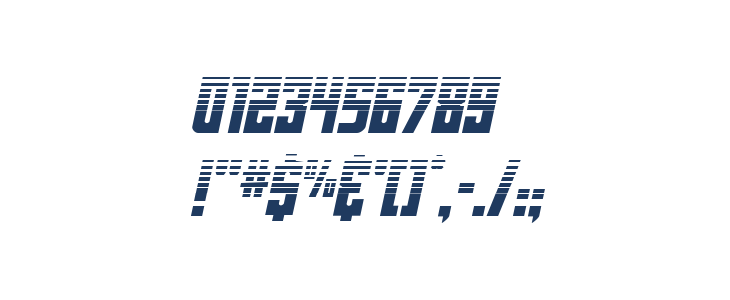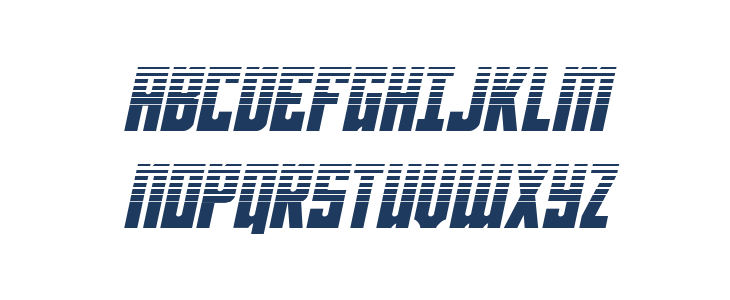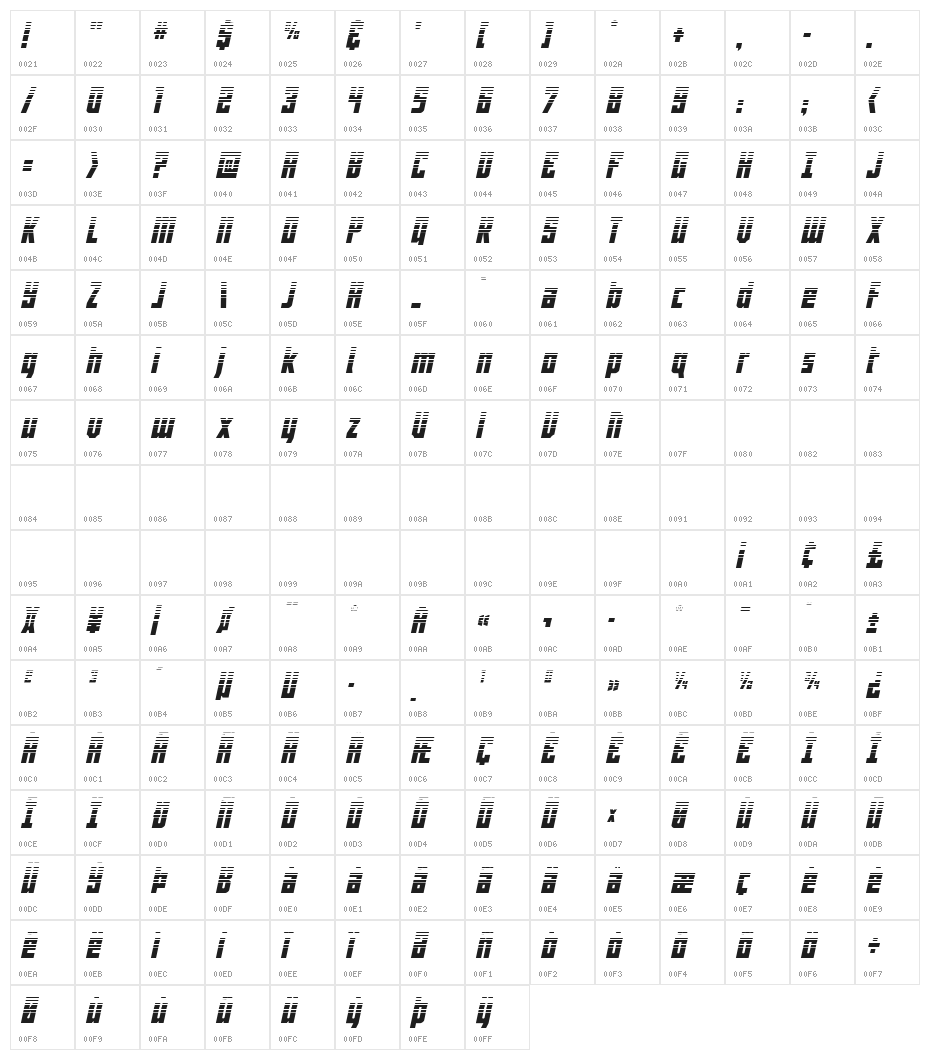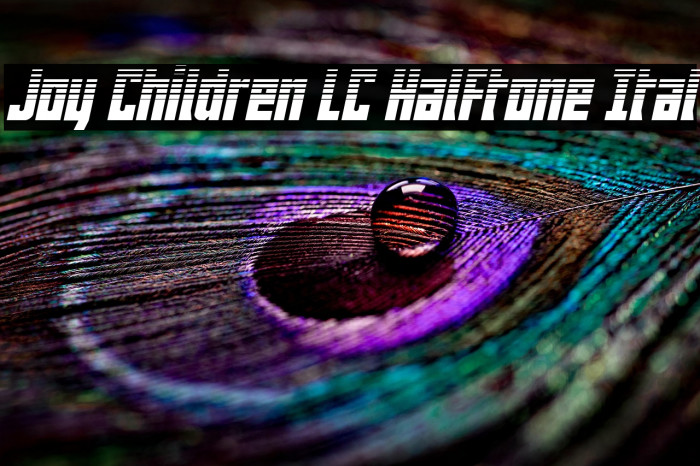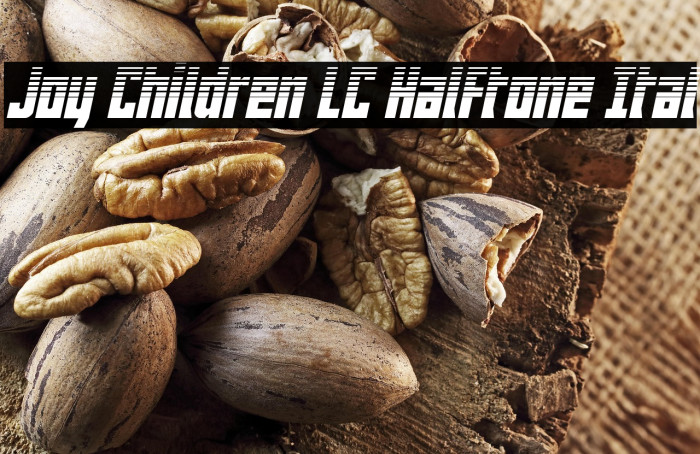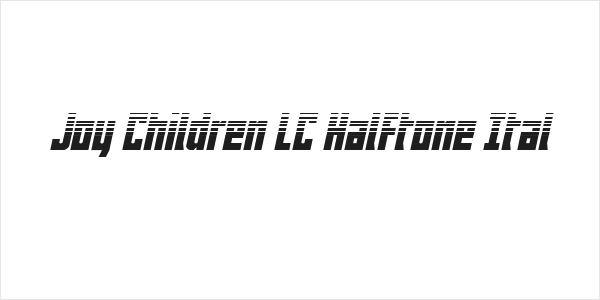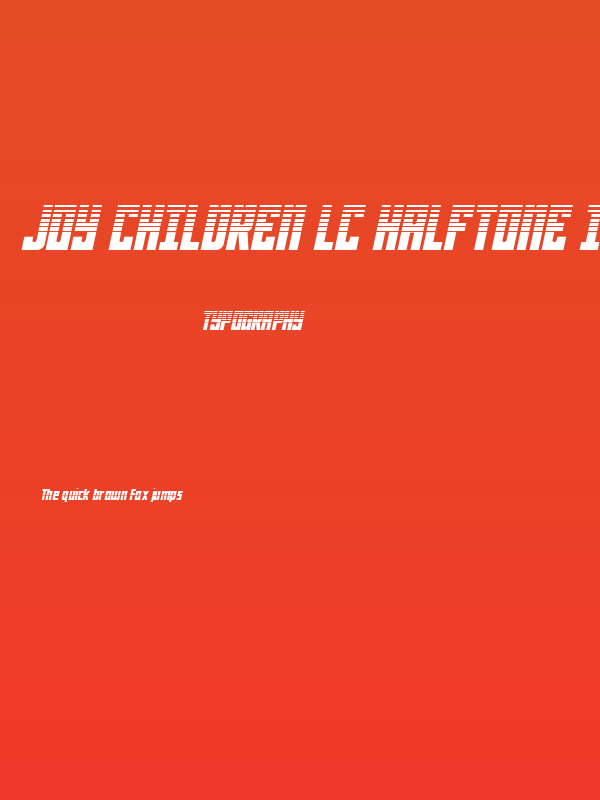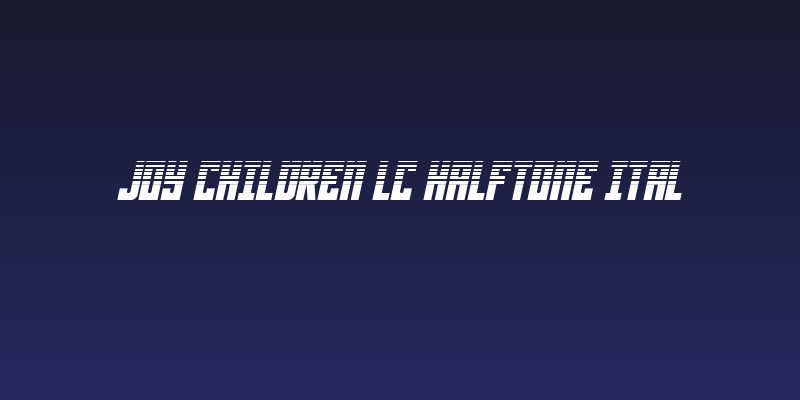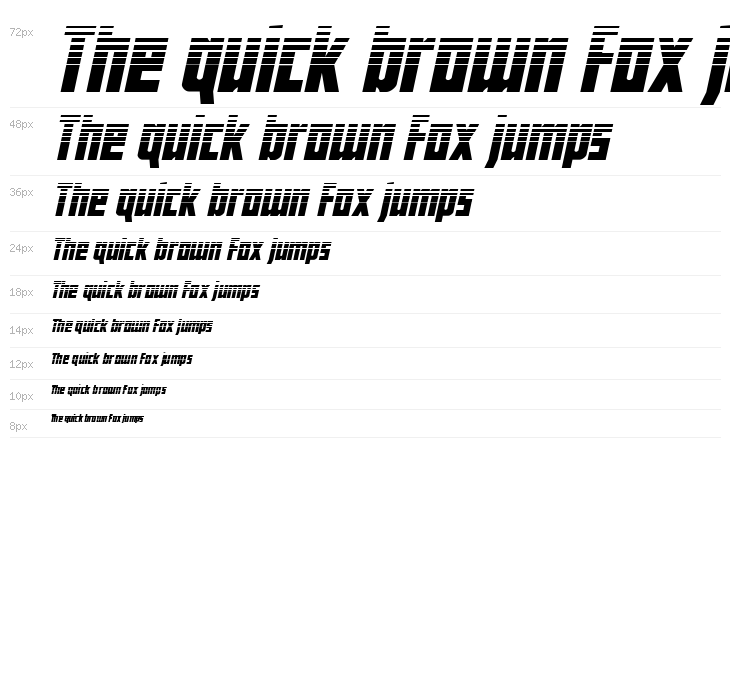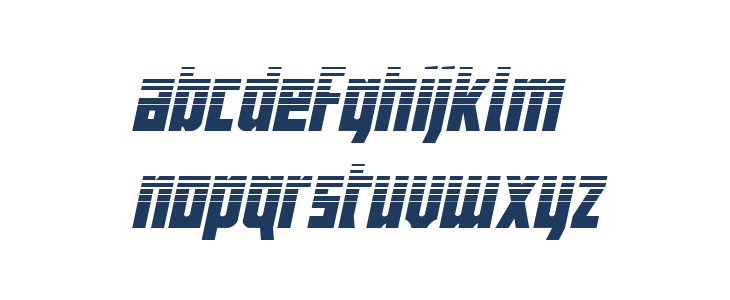
Joy Children LC Halftone Ital Font
Joy Children LC Halftone Ital Description
A bold, italic, striped sans-serif font with a futuristic and dynamic appearance, featuring horizontal lines that create a sense of motion.
| Overall Style | Futuristic, Modern, Dynamic |
| Use Case | Headlines, Logos, Digital interfaces |